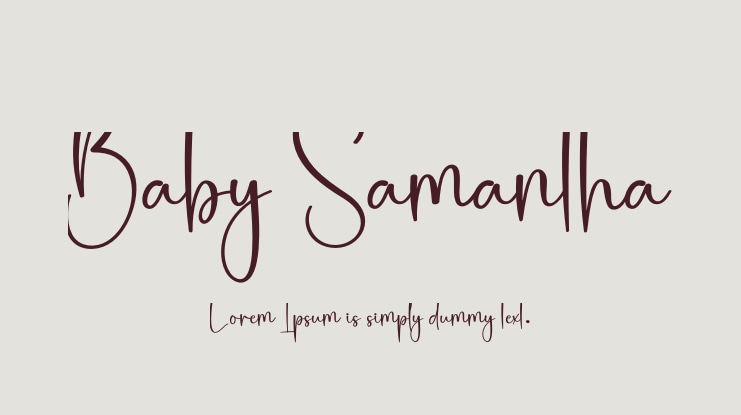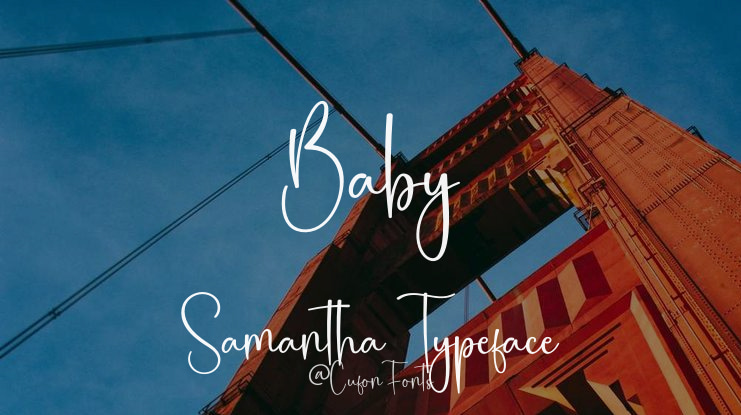
Baby Samantha Font
We offer special creative products designed to provide you with an extraordinary experience. Our latest style letters are perfect for various applications, including:
- Wall displays - Wedding invitations - Social media post logos - Advertisements - Product packaging - Product designs - Labels - Photography watermarks - Invitations - Stationery
These fonts are ideal for any project requiring tasteful handwriting.